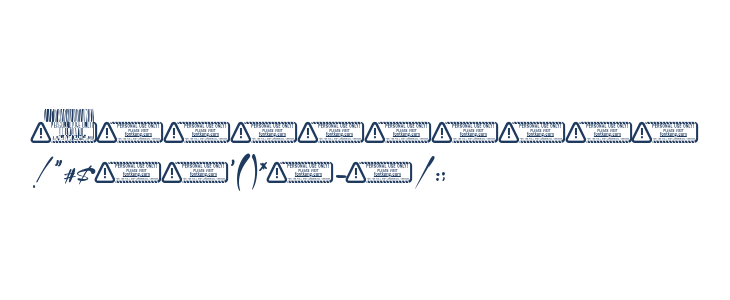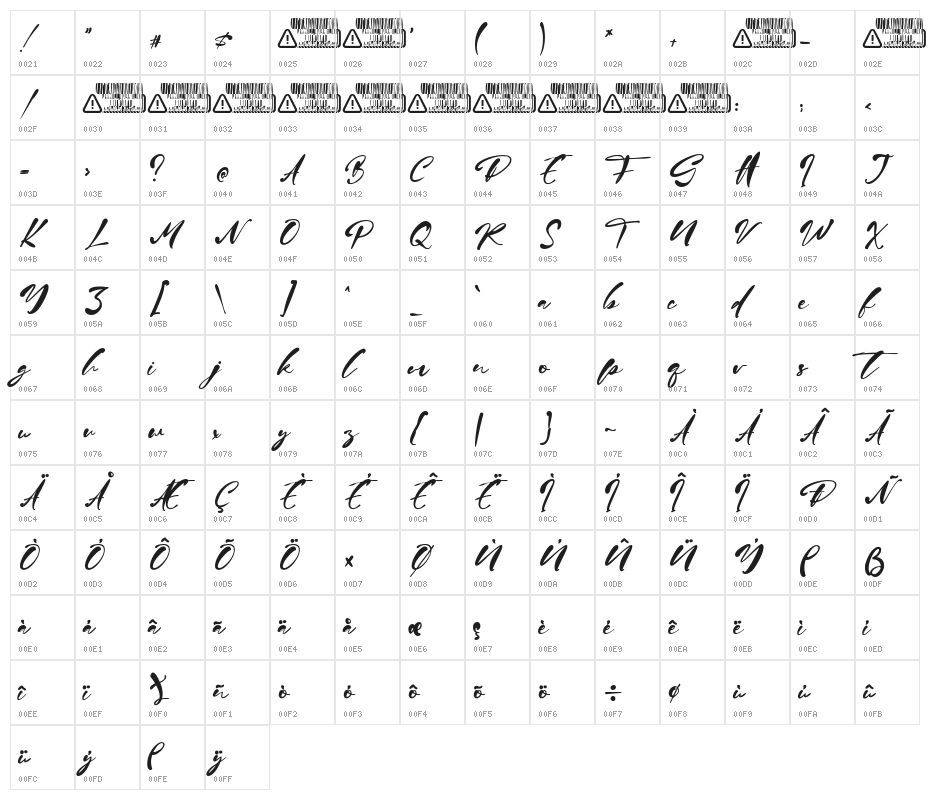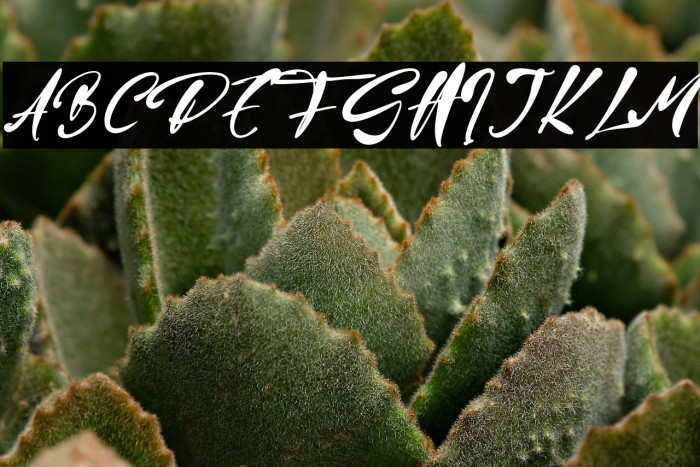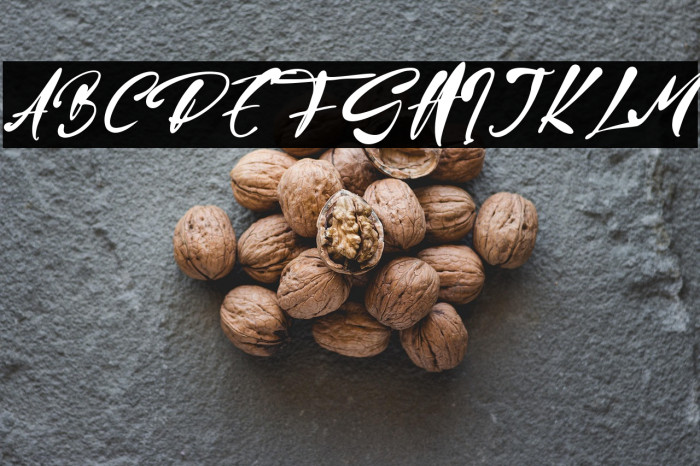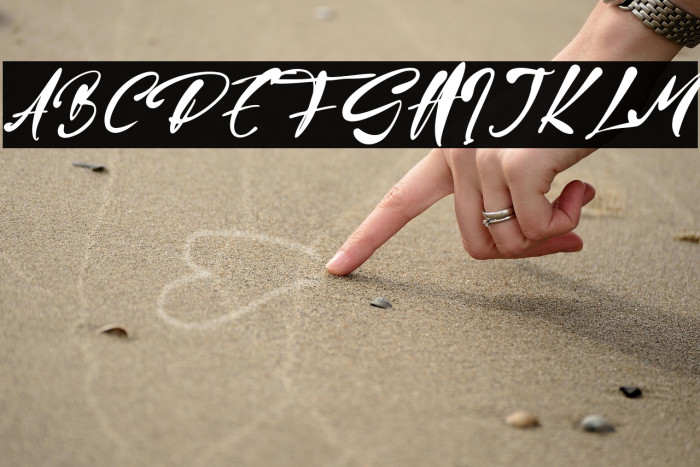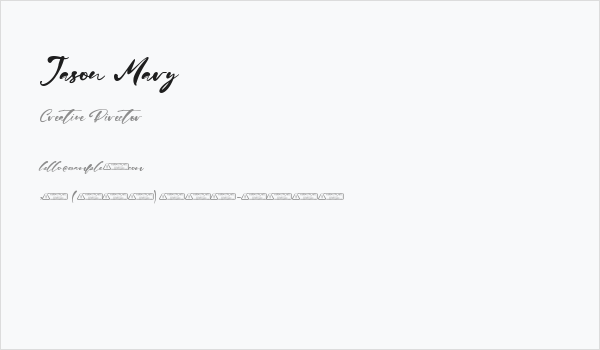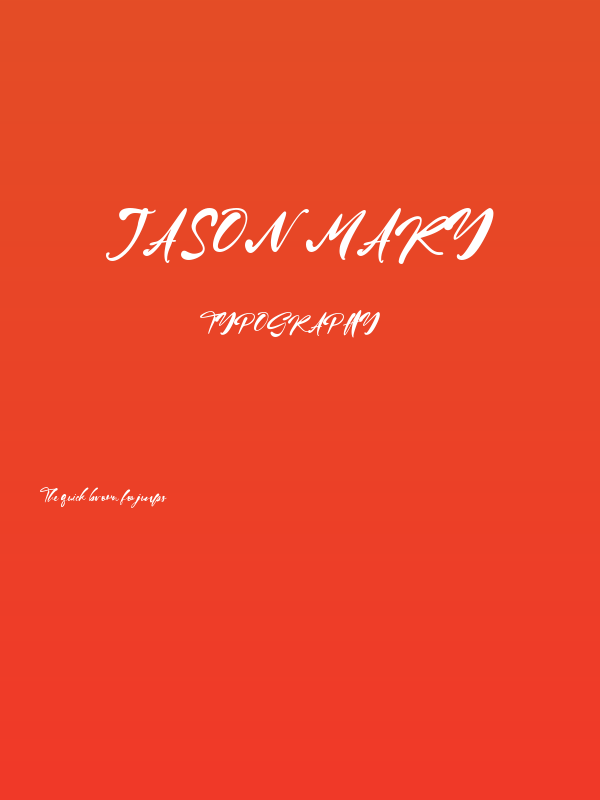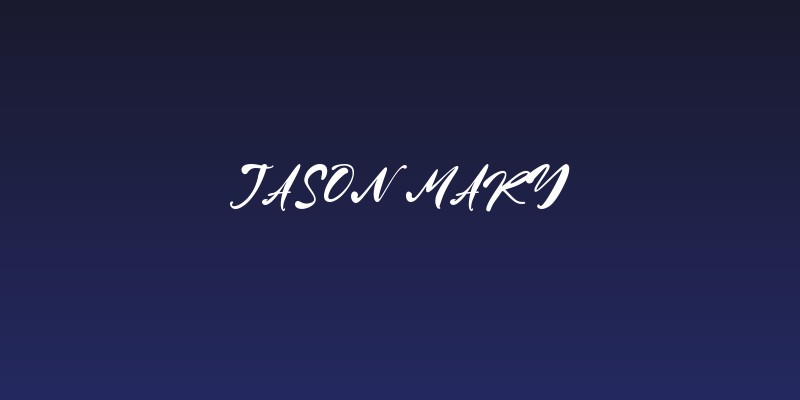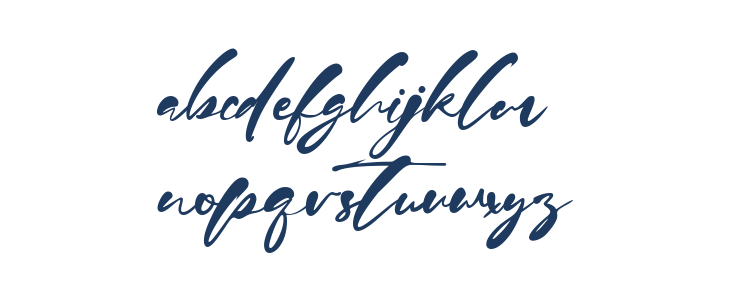
Jason Mary Font
Jason Mary Description
This font exhibits a dynamic and flowing script style, characterized by its elegant and cursive letterforms. The uppercase letters are bold and sweeping, with a sense of movement and fluidity, while the lowercase letters maintain a consistent style with a slightly more restrained appearance. The strokes are smooth and connected, giving the text a handwritten feel. The font's overall appearance is both sophisticated and approachable, making it suitable for a variety of design applications. The special characters are integrated seamlessly, maintaining the font's cohesive look.
| Overall Style | Elegant |
| Use Case | Logos, Invitations, Branding |
| Proposed Projects | Ideal for wedding invitations, greeting cards, branding projects, and elegant packaging designs. |